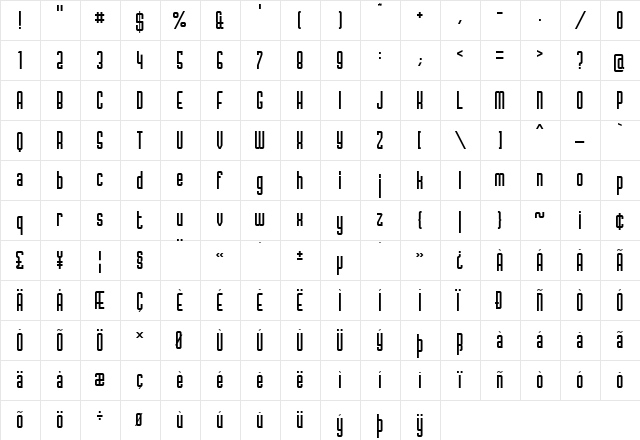
Popincourt 1981 Lo Regular
| Designer | sweeep |
Design Context for Popincourt 1981 Lo Typeface
Popincourt 1981 Lo offers clean, dependable letterforms without strong stylistic allegiance, making it a practical choice for designers who need flexibility.